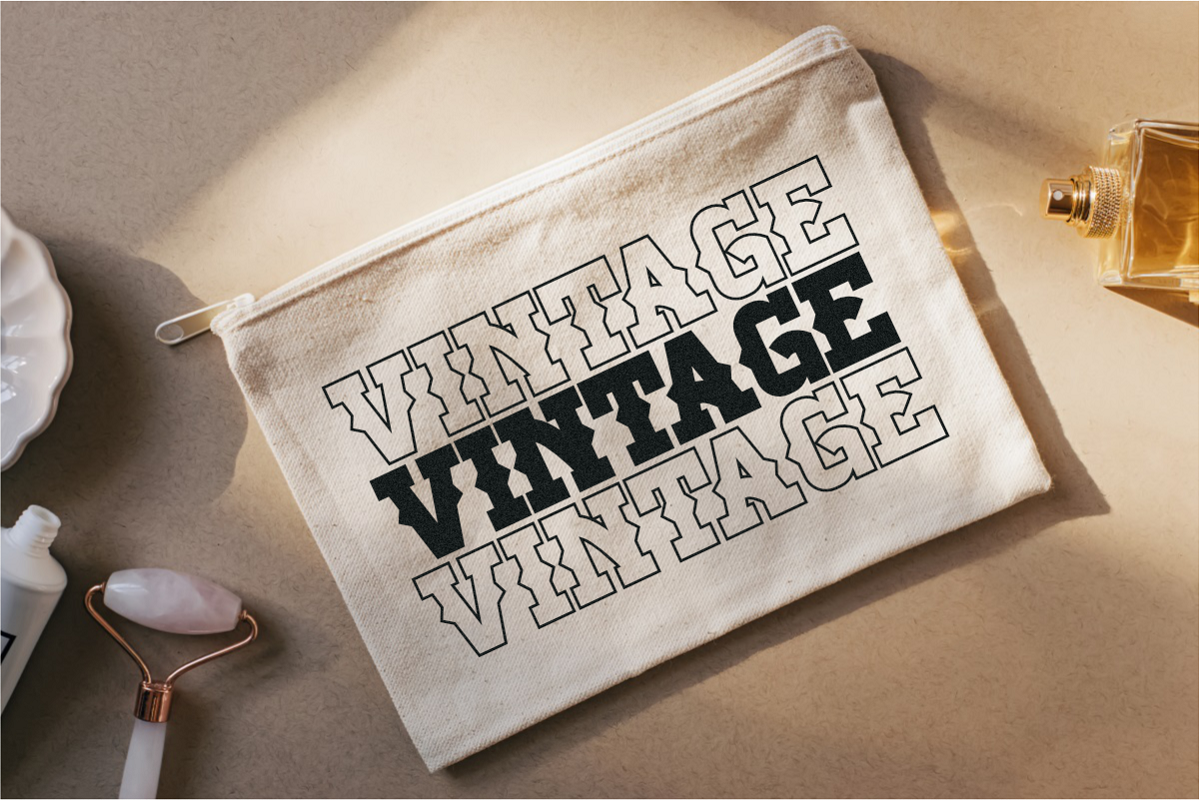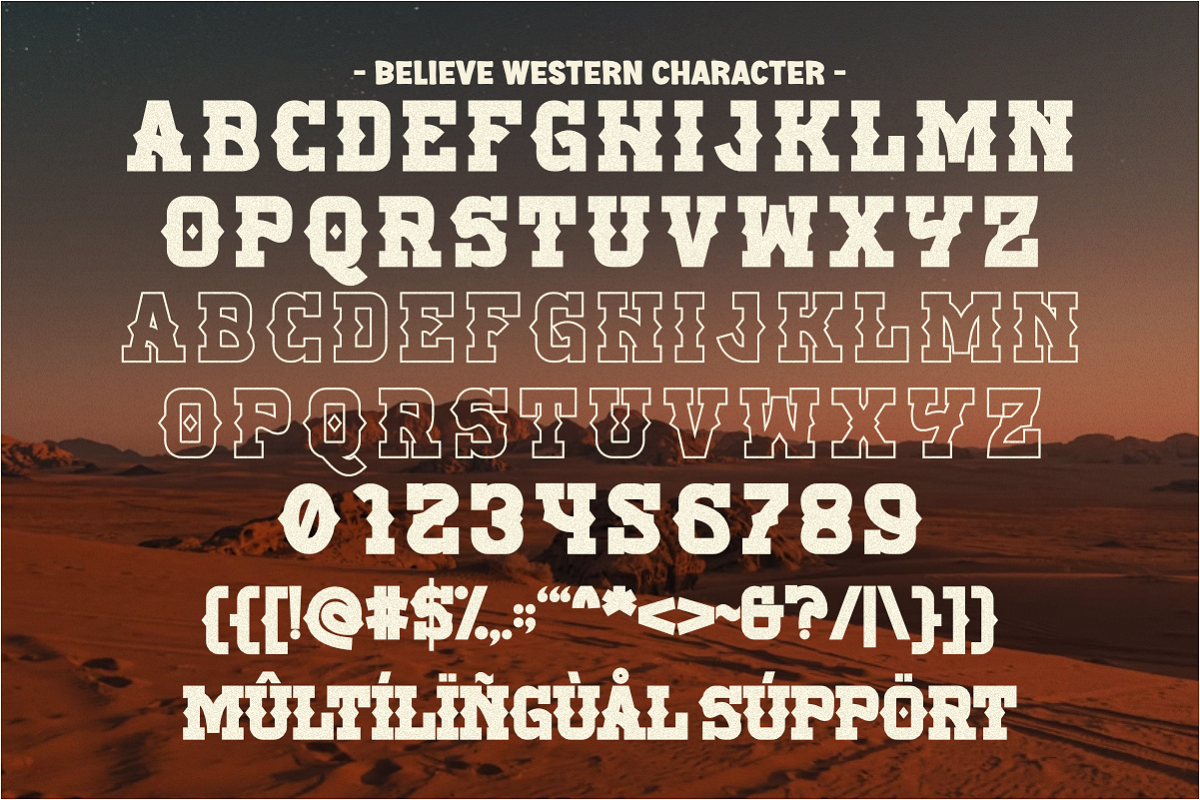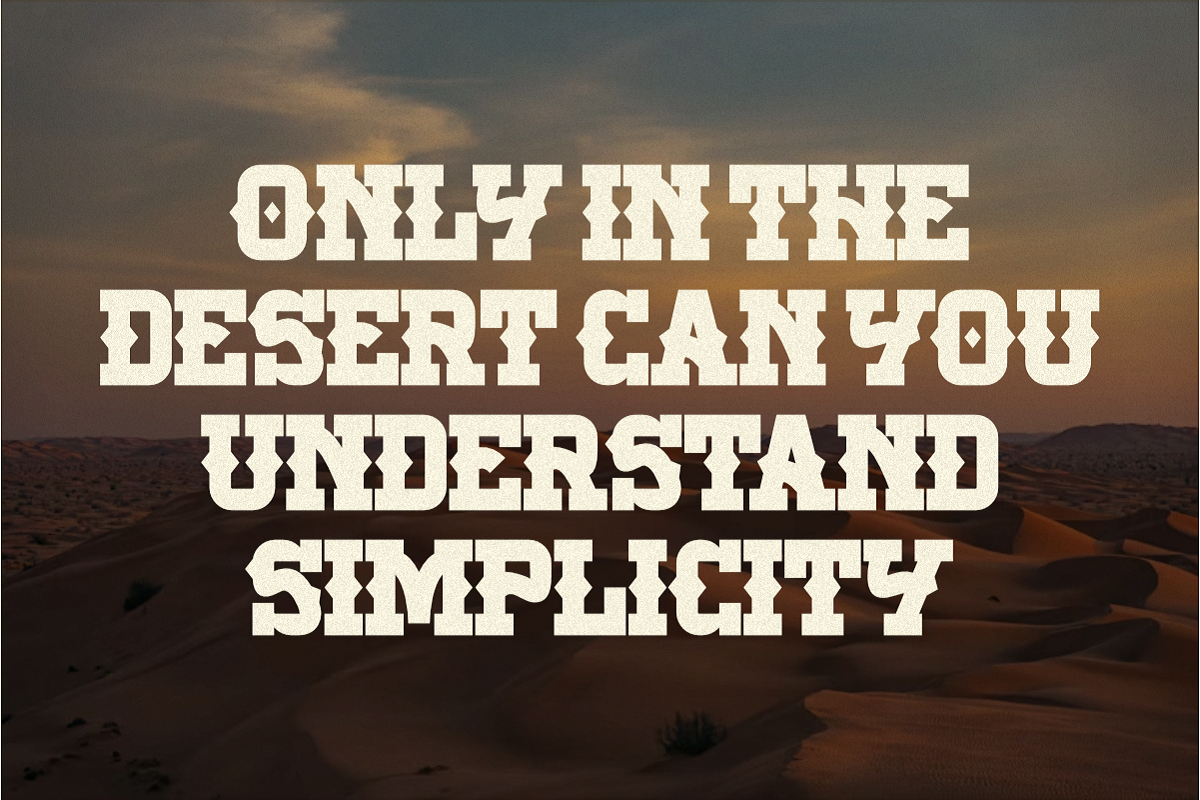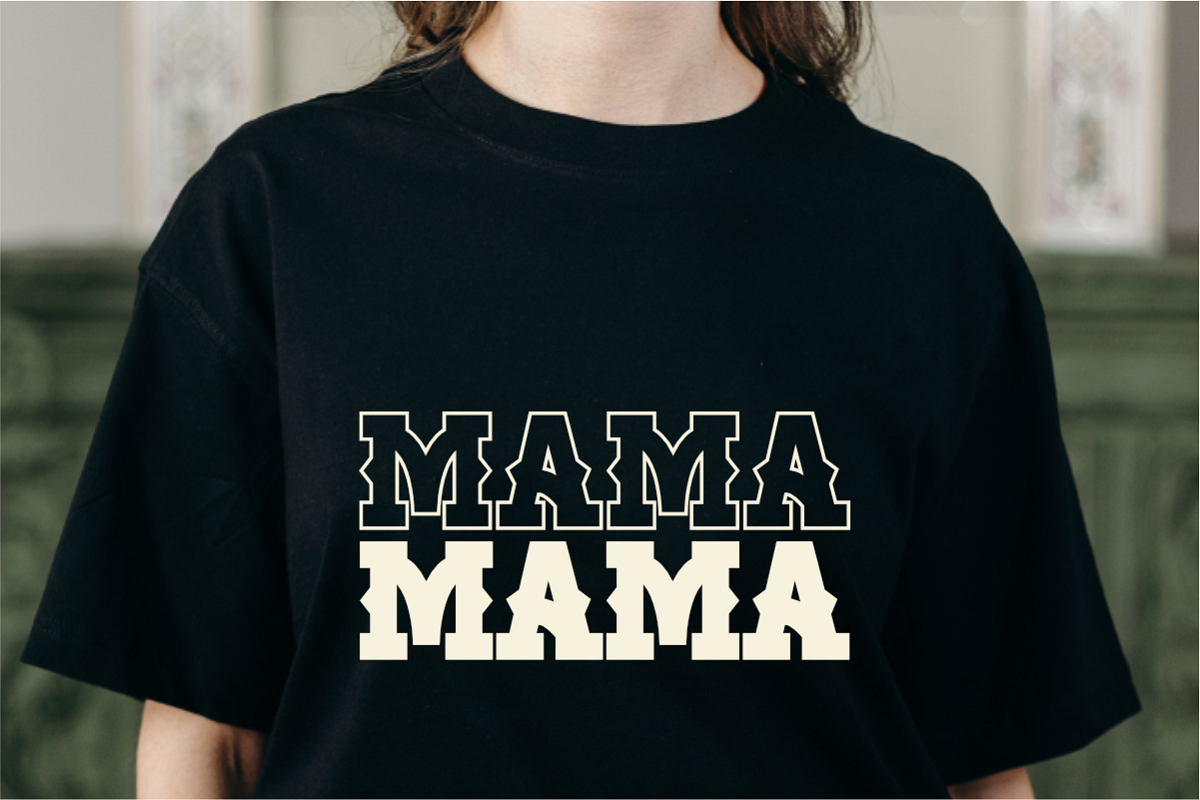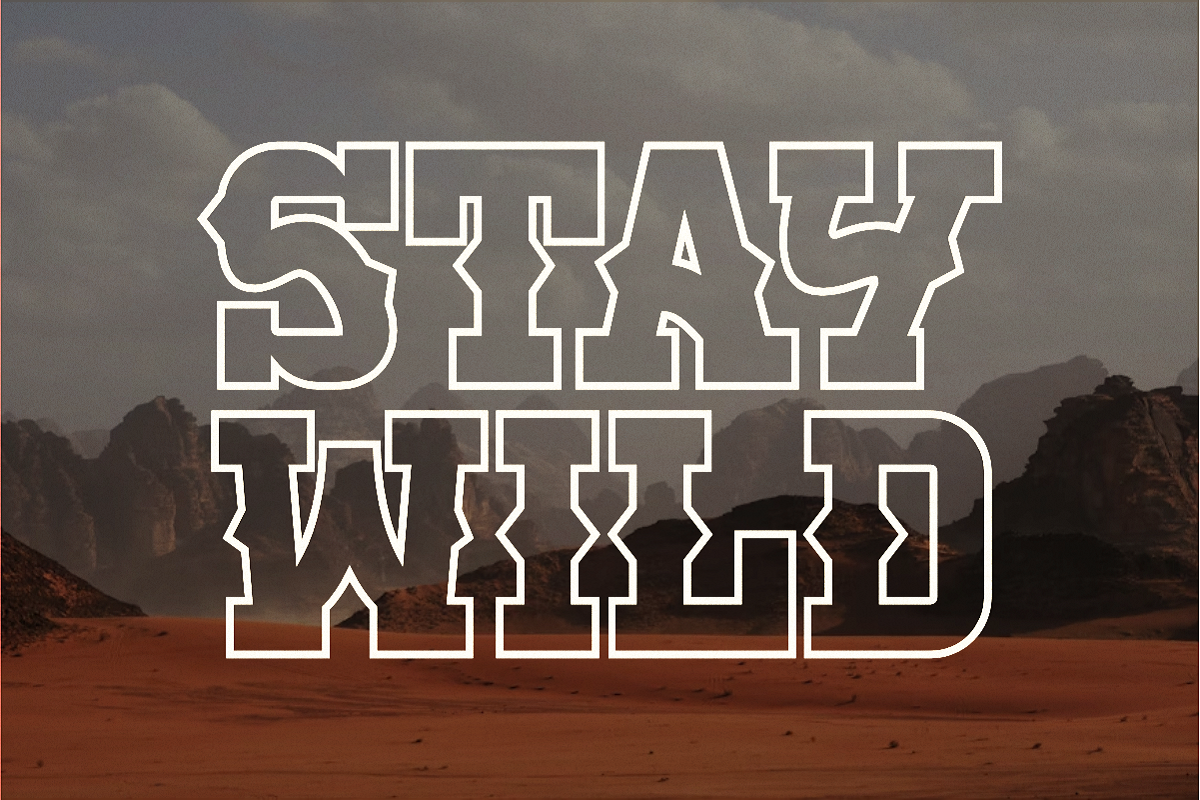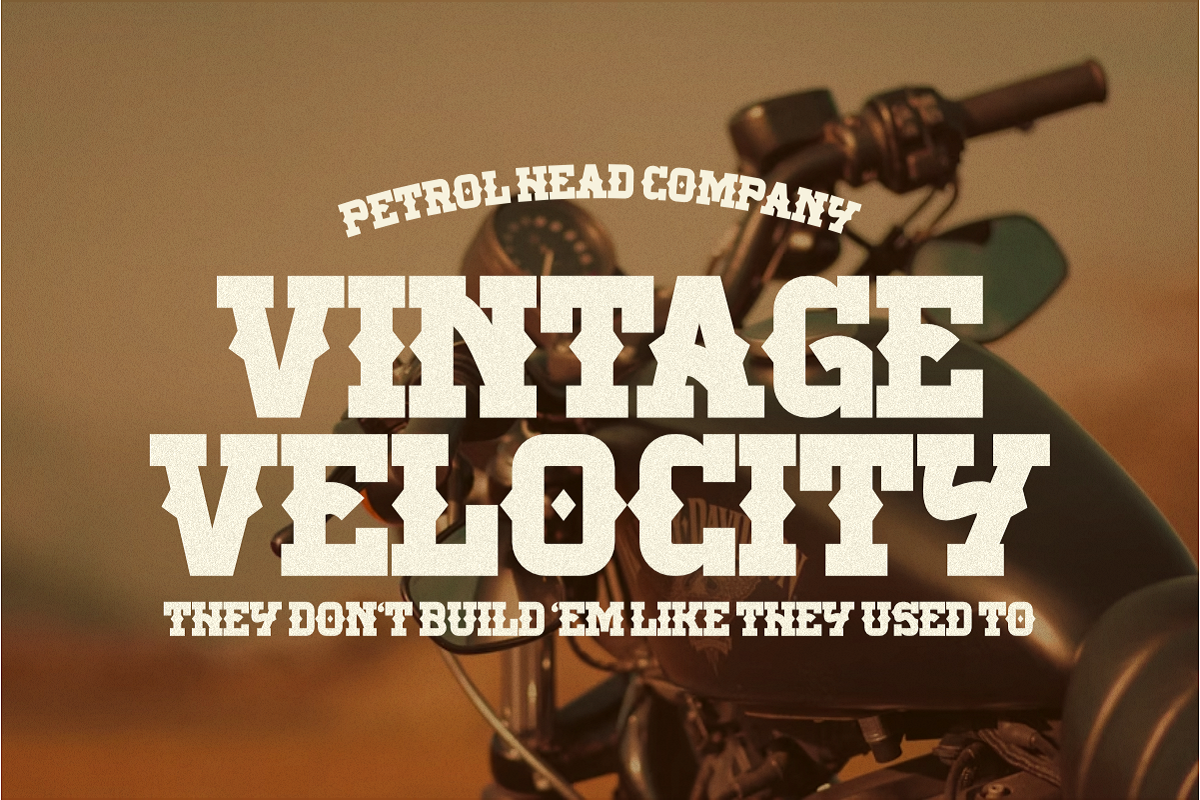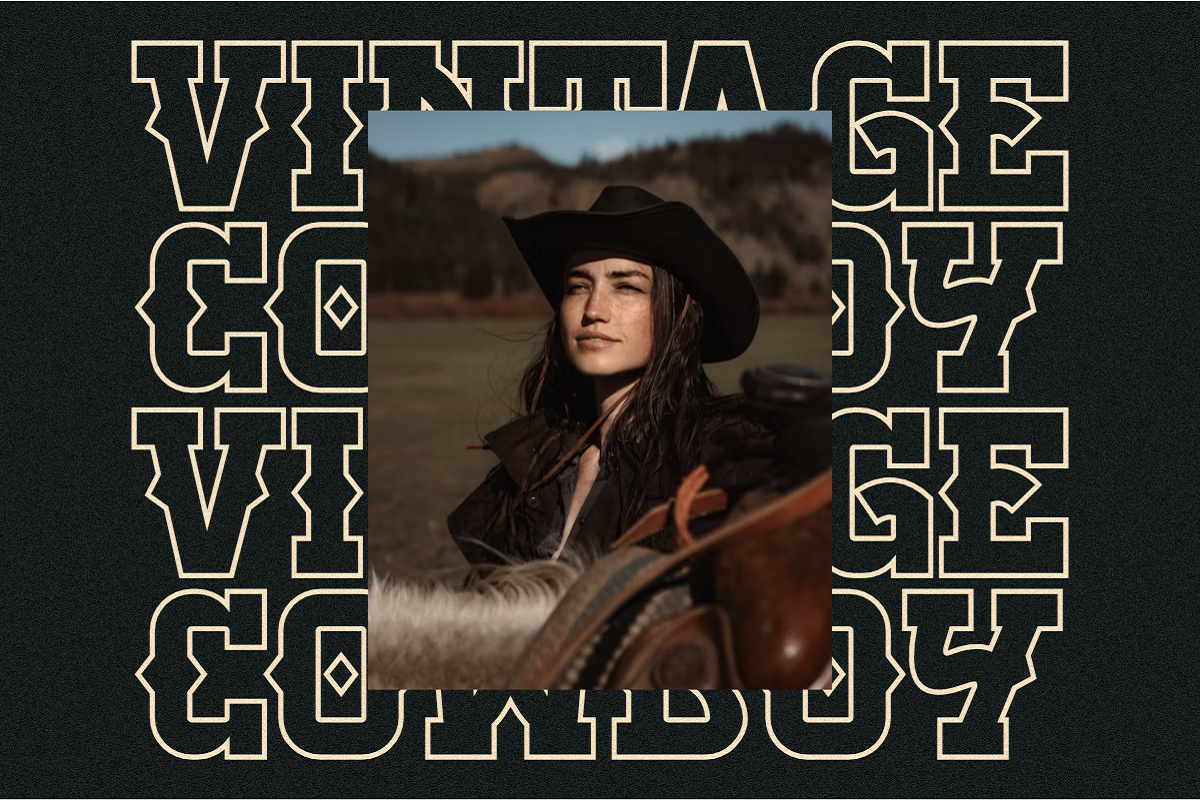
Believe Western - Vintage Slab Serif
Believe Western is a powerful and rugged Vintage Western Slab Serif font that captures the timeless spirit of the wild west and classic American frontier typography. This bold, condensed typeface is engineered for high-impact display and gives your project an instant, authentic retro look.